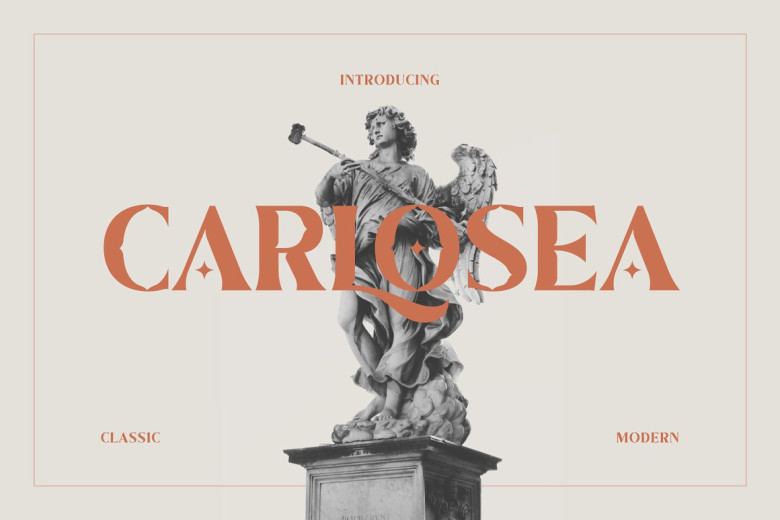
Carlosea Font
Carlosea is an elegant and stunning upper and lower case serif typeface which looks stunning both small and large settings. Carlosea can be used in a variety of projects including logos wedding designs ads social media posts packaging product labels photography watermark invitations as well as any other project that you are working on.
Carlosea Serif Font